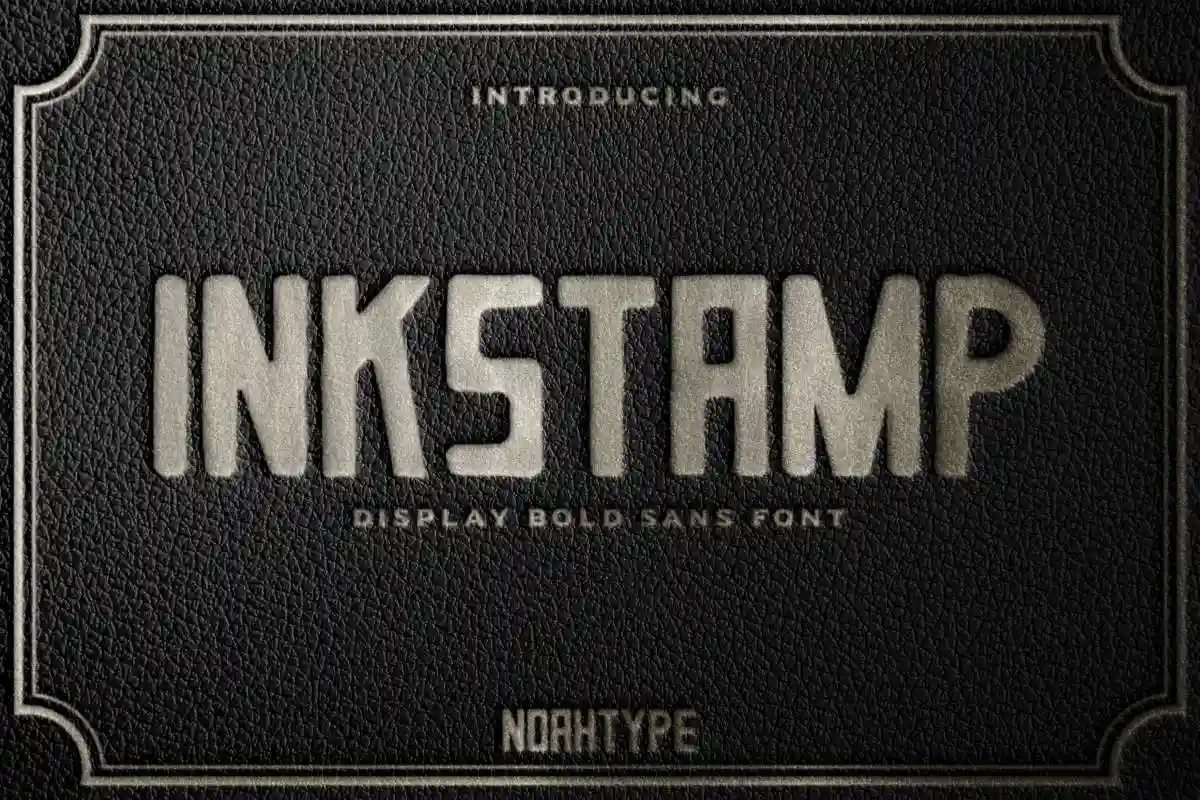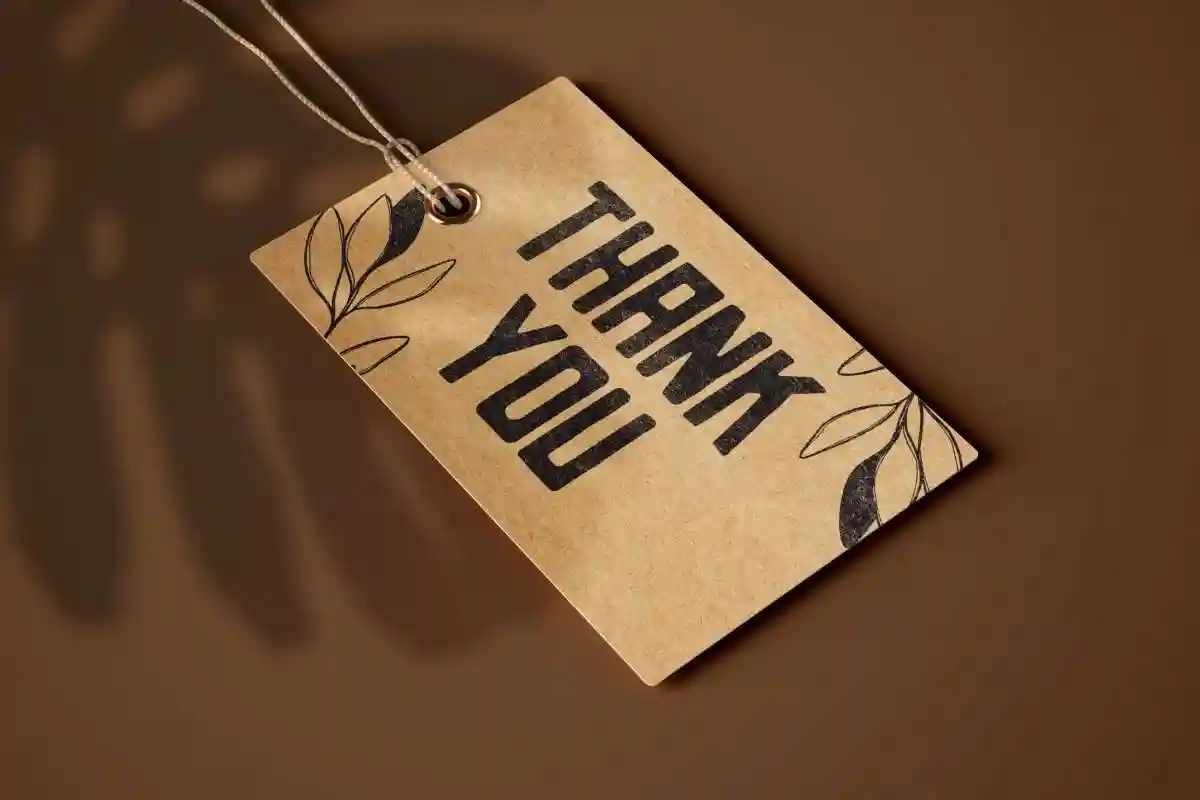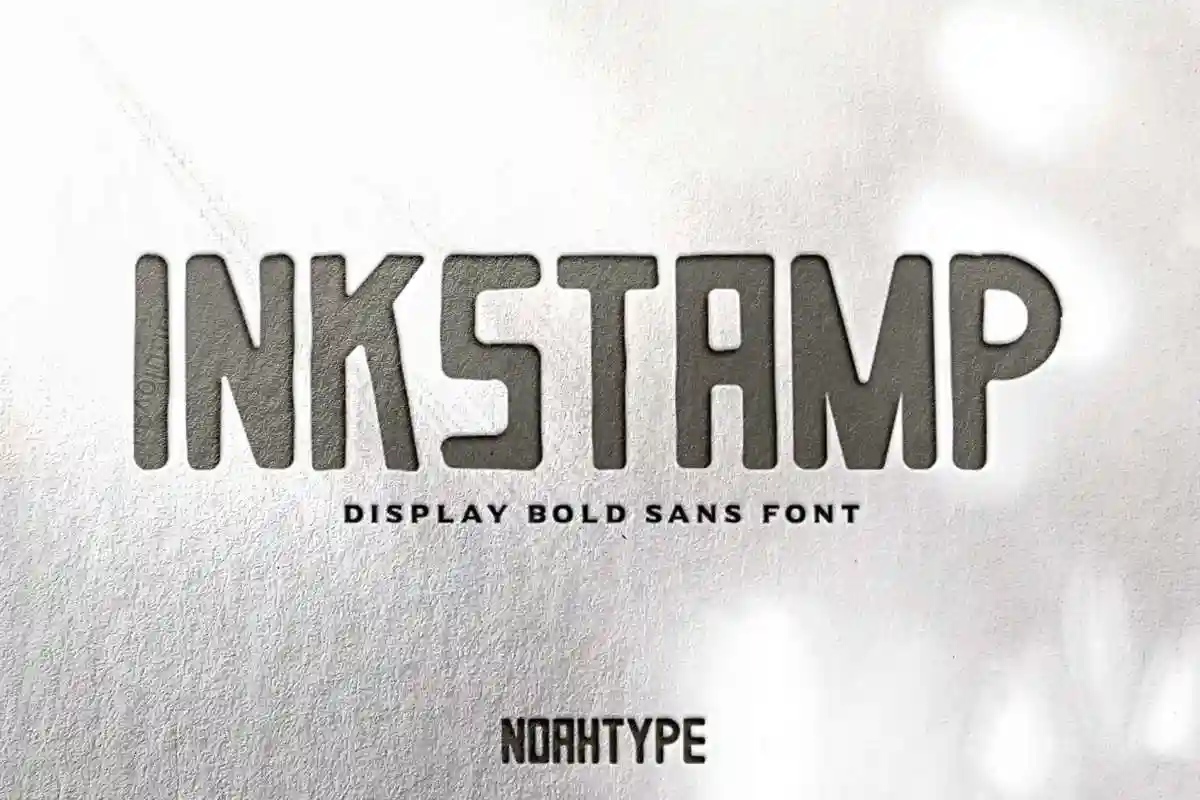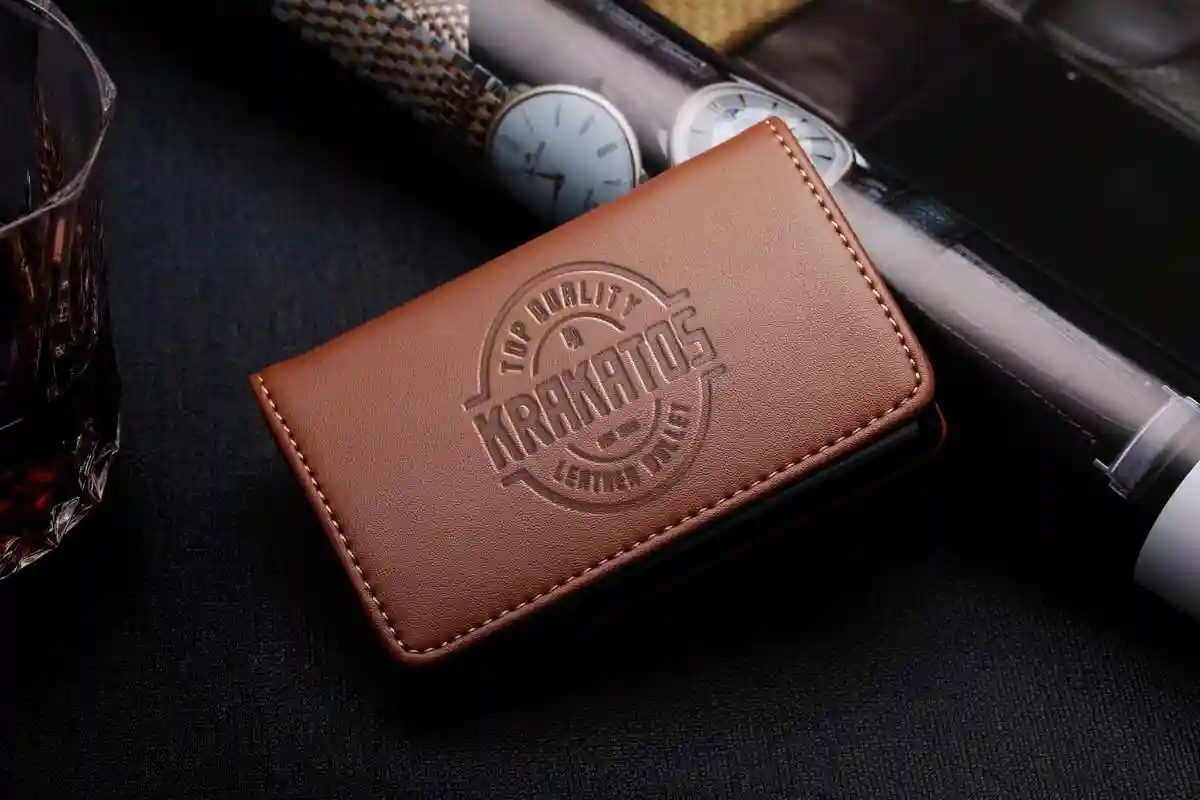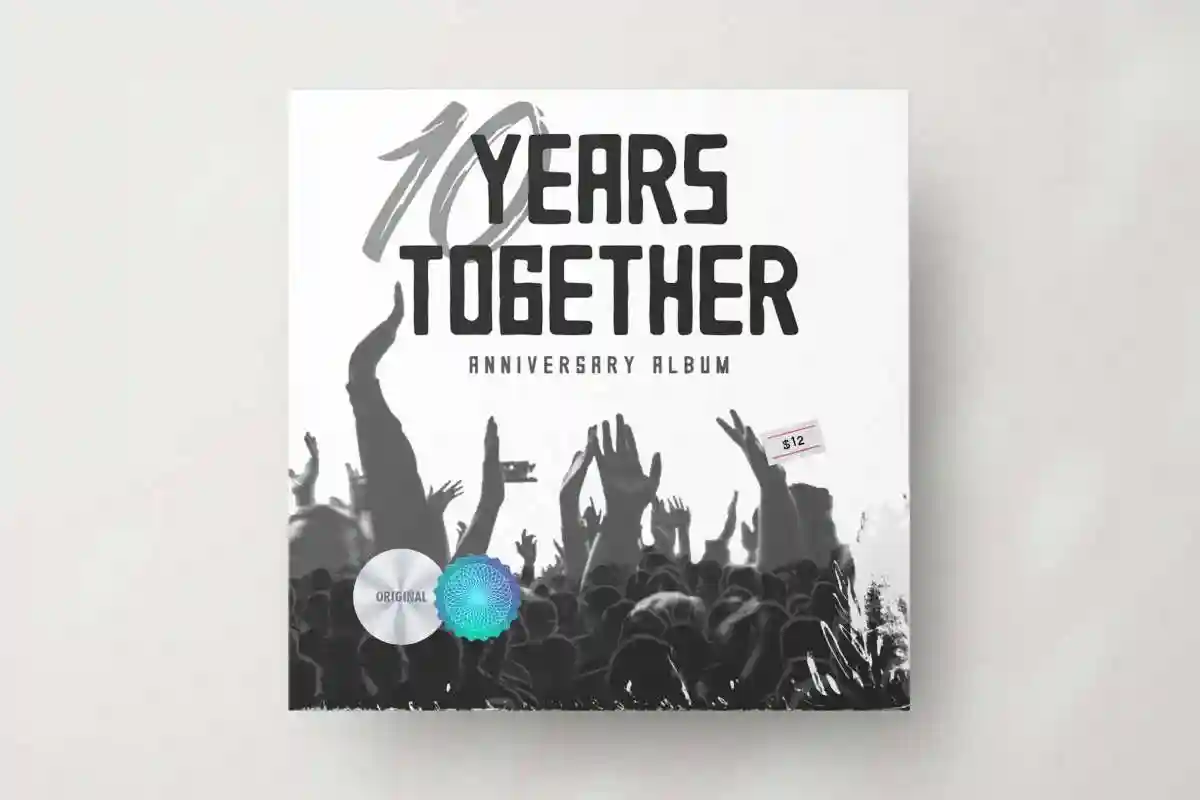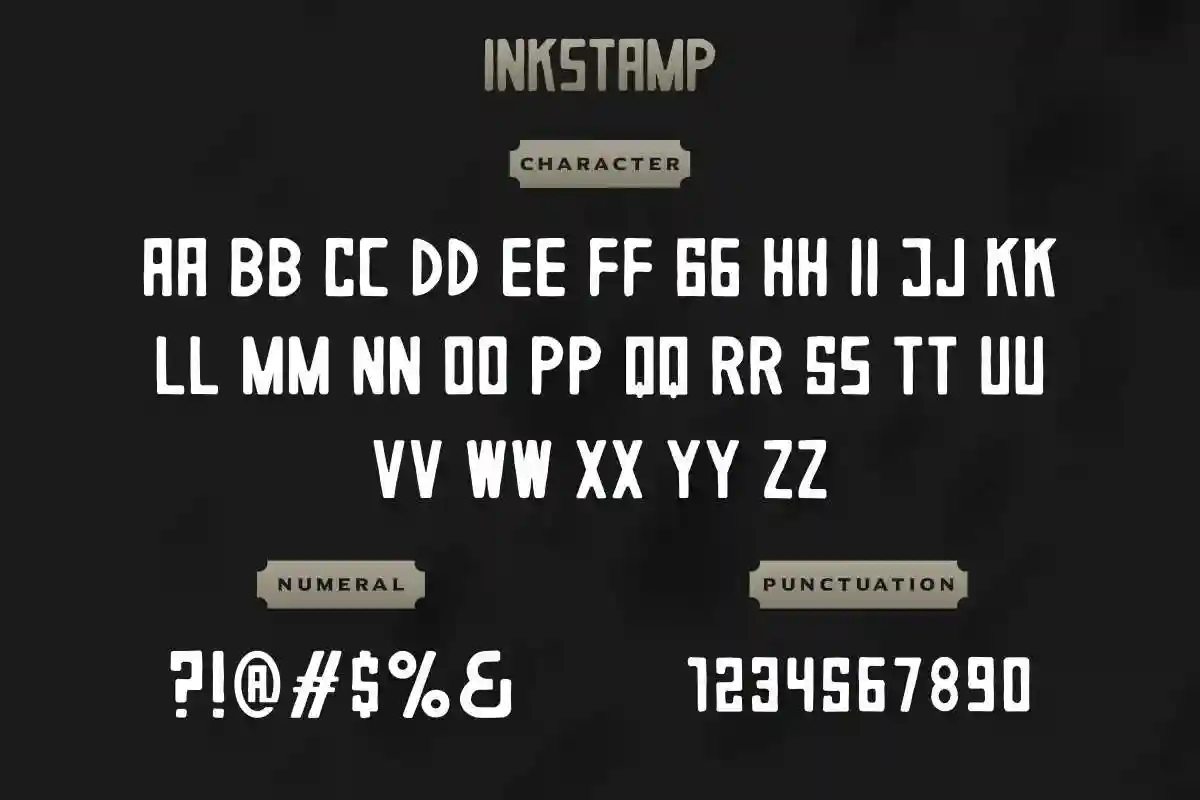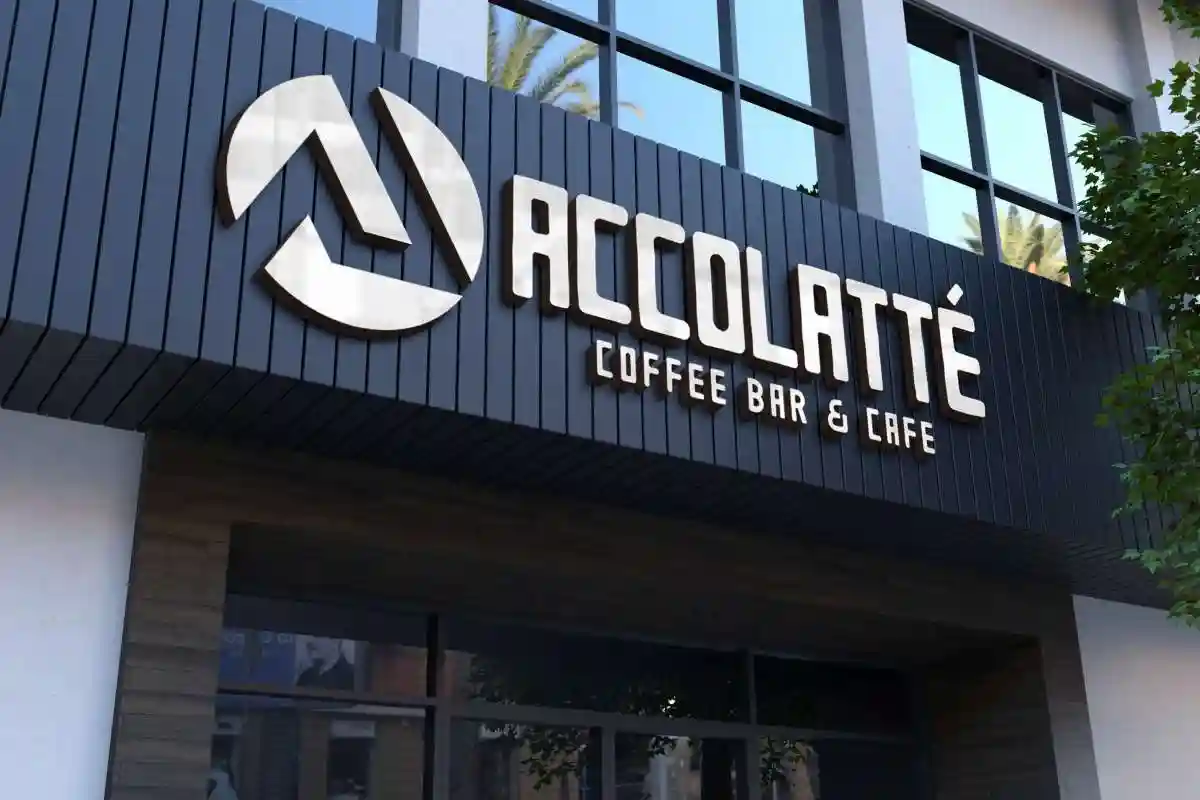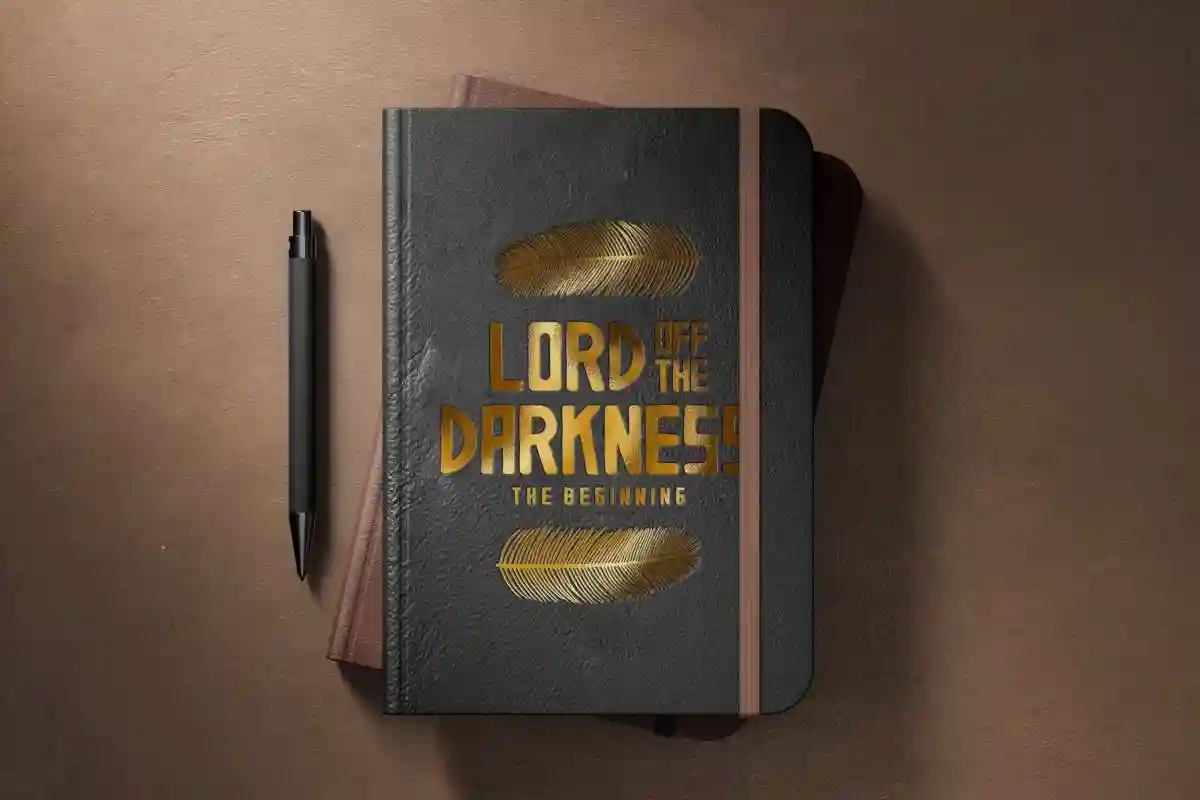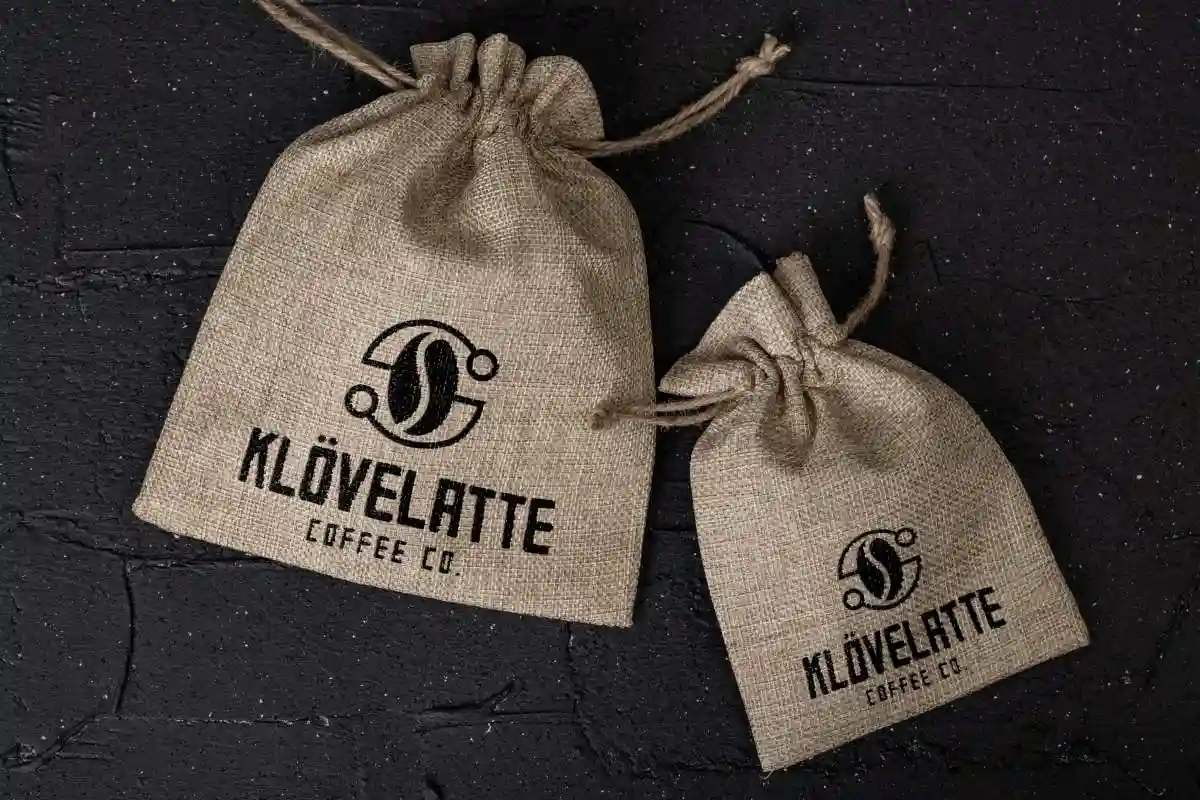
Inkstamp Font is an exclusive bold serif display font from NoahType Studio. The font was inspired from press machine lettering. It has a unique style that will bring the old vintage special effect to the design. It will works for events, wedding, branding, artist, make up, and any other fun things. Inkstamp includes full set of Uppercase and Lowercase Basic Characters, Numerals and Punctuation. The font will also works for many industries including outdoor, fashion products, camping, adventure style. The font is perfect for many projects, headlines, logos, poster, tittle, products, etc